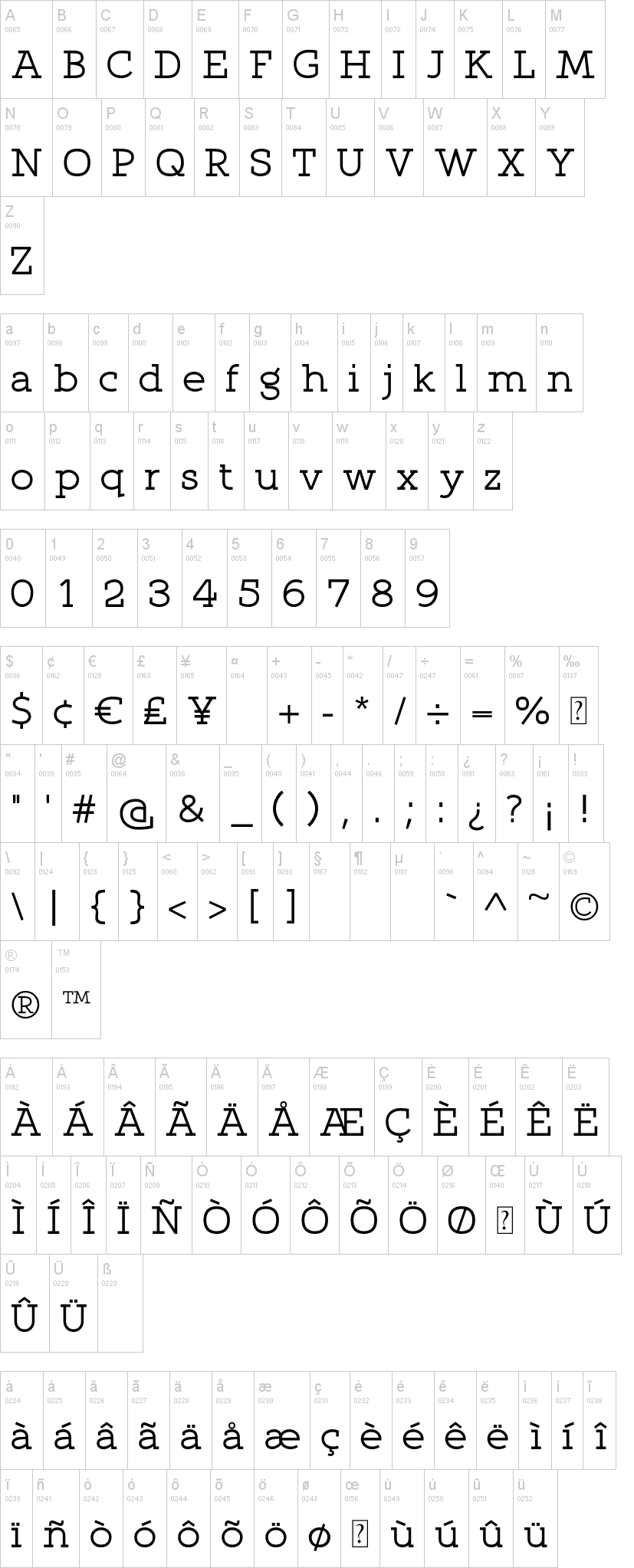
qlarendon light italic.otfqlarendon.otfqlarendon italic.otfqlarendon bold.otfqlarendon condensed italic.otfNote of the authorA family of 7 modern, slabby serif fonts which work together but are not strictly the same. There are other similar typefaces out there but the more the merrier?